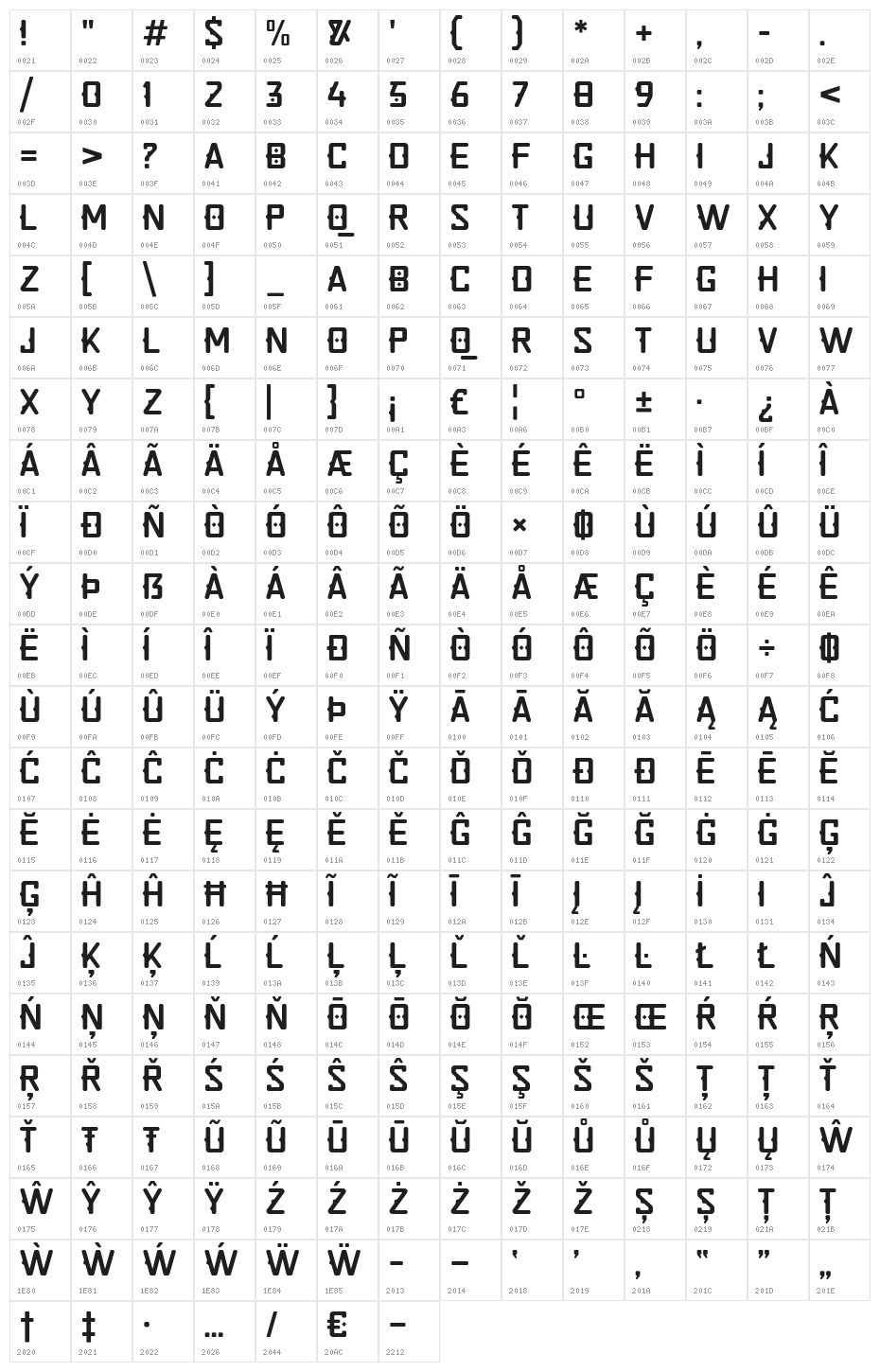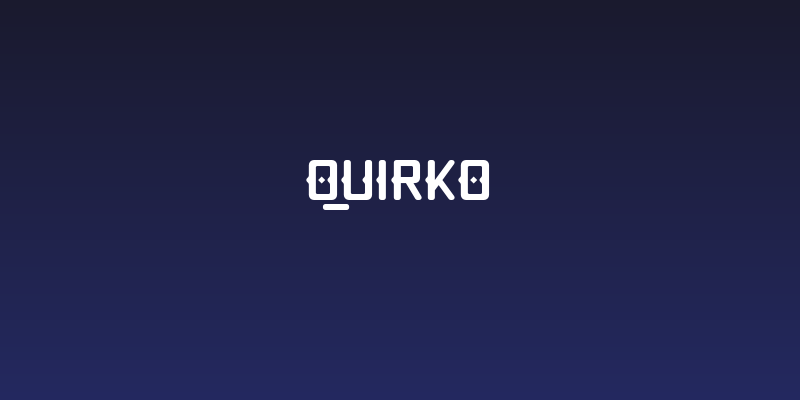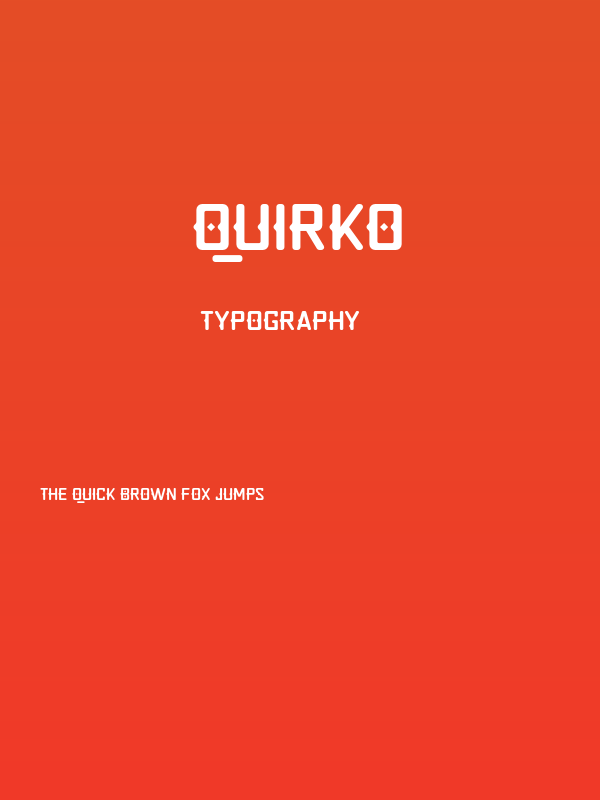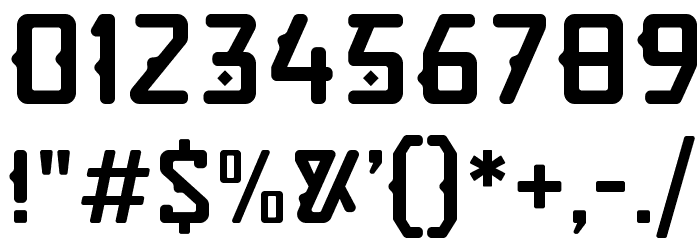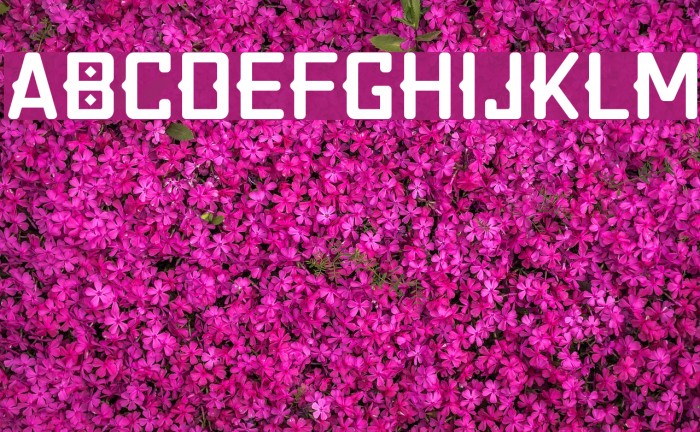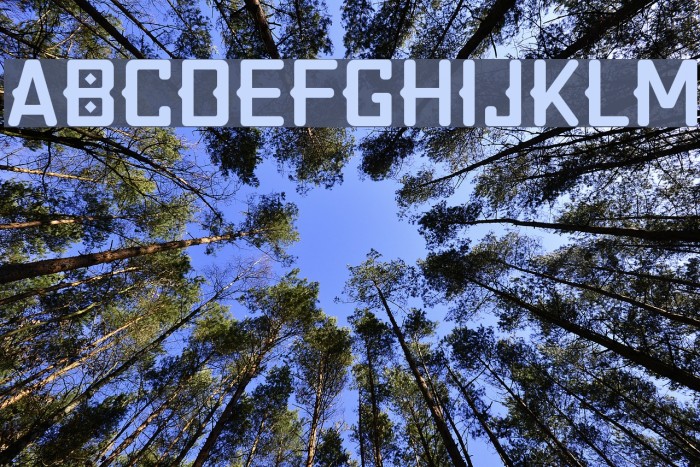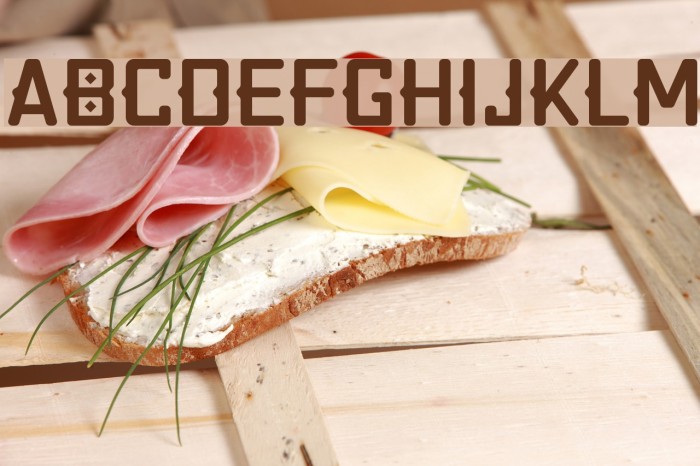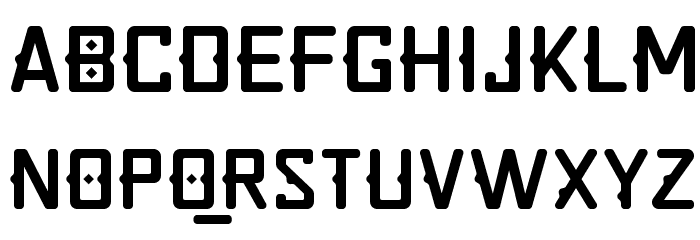
Quirko Font
Quirko Description
This font features a bold, geometric design with a modern and futuristic aesthetic. The characters are constructed with thick, uniform strokes and have a distinct, angular appearance. The uppercase and lowercase letters maintain a consistent style, with unique cutouts and shapes that add a decorative touch. The numerals and special characters follow the same design principles, ensuring a cohesive look across all elements. The font's boldness and distinctive style make it suitable for attention-grabbing headlines and creative projects.
| Proposed Projects | Ideal for branding, logos, posters, and digital media that require a modern and eye-catching typeface. |